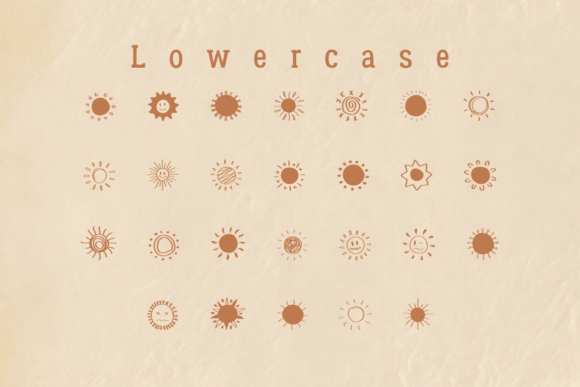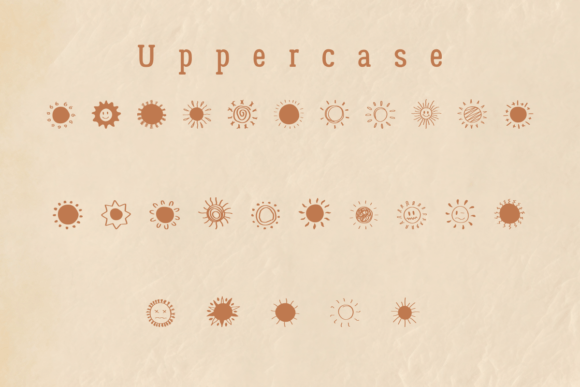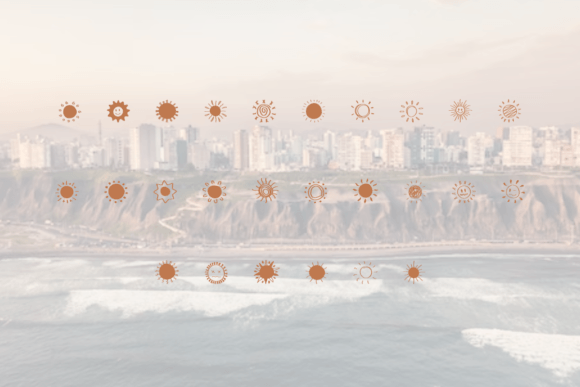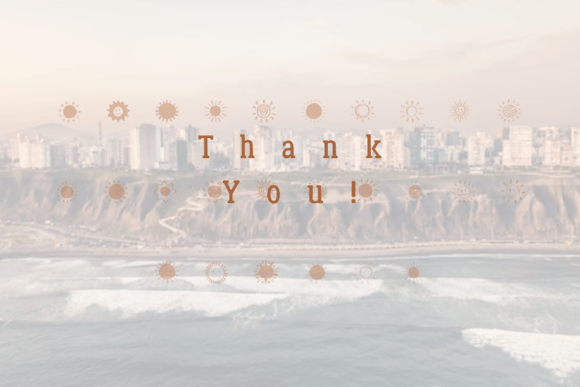
Introduction to Retro Sun Font
Retro Sun is a dingbat font containing upper and lower case glyphs, Retro Sun dingbat font is suitable for decorative fonts, children’s books, stickers, and book covers.
Key Features of Retro Sun Font